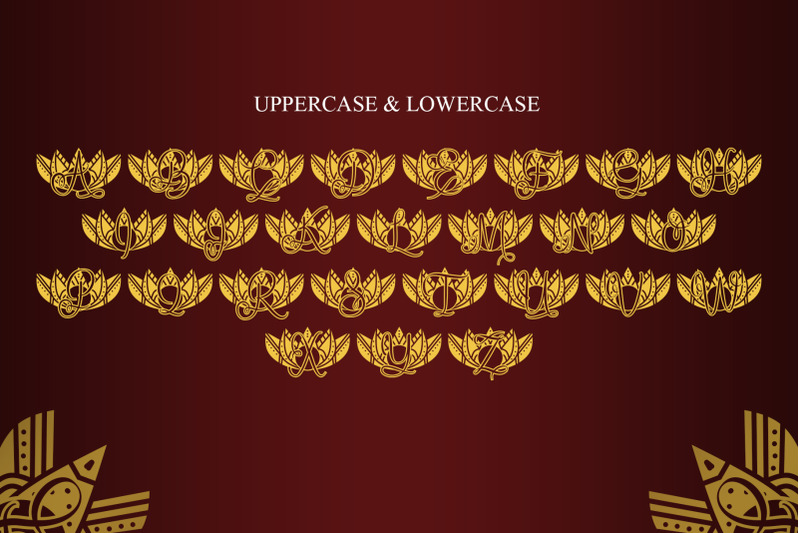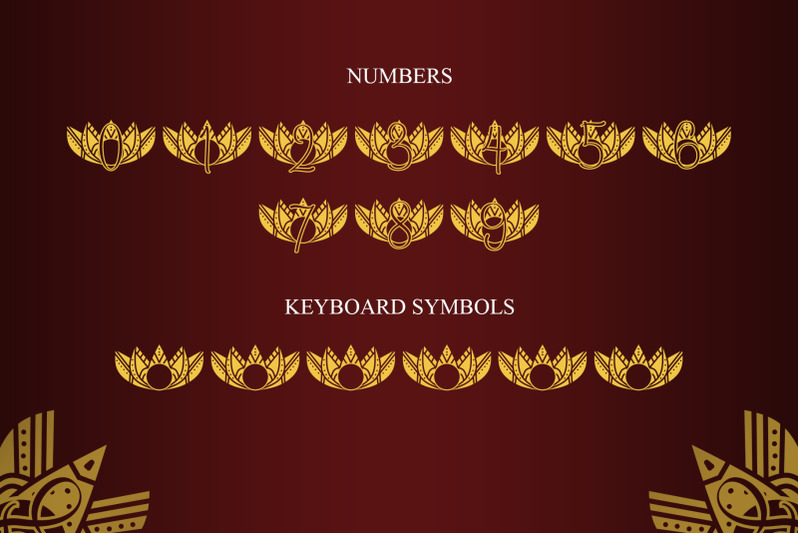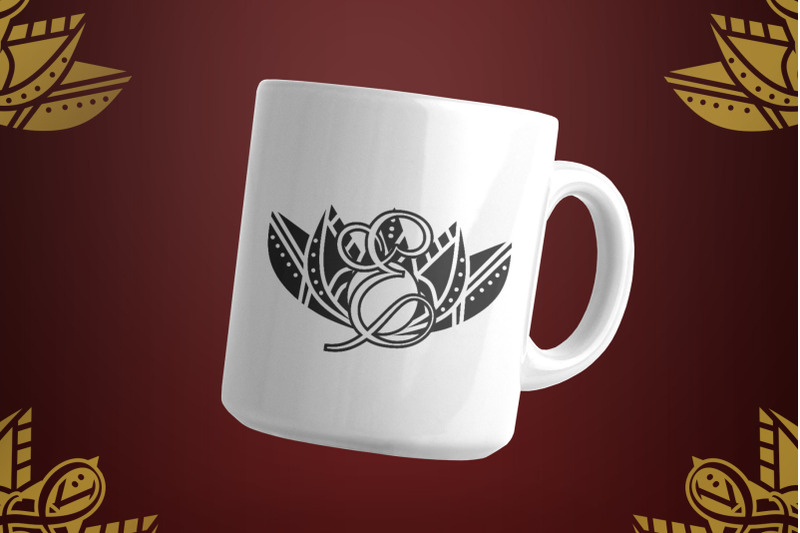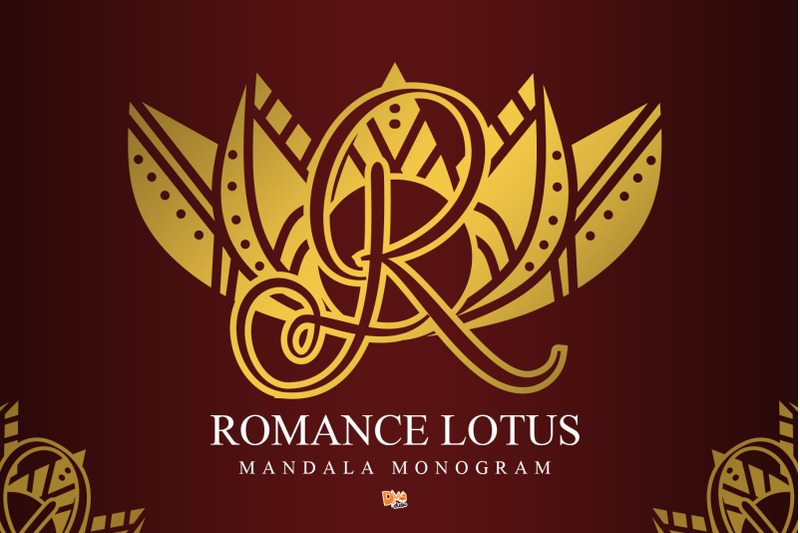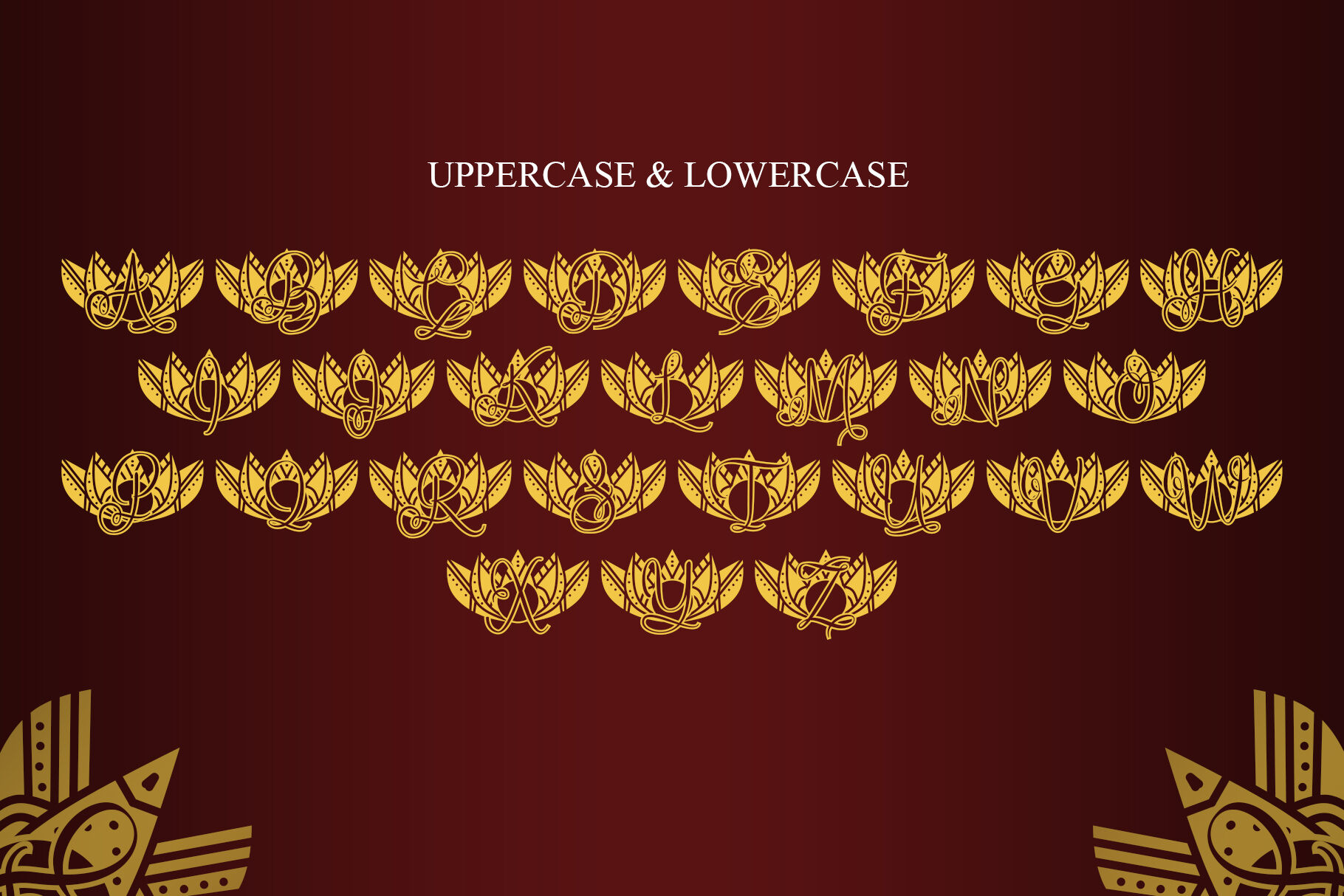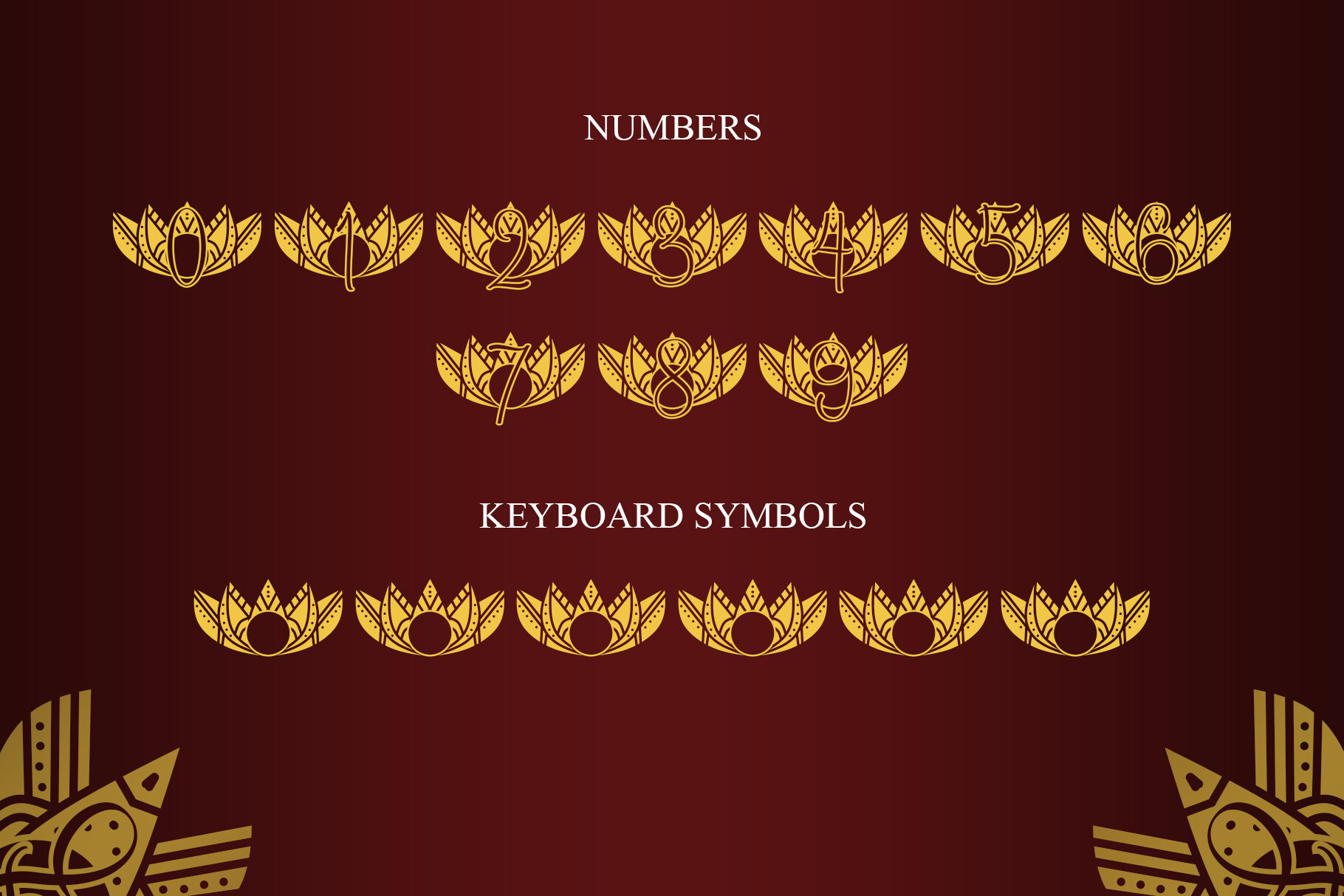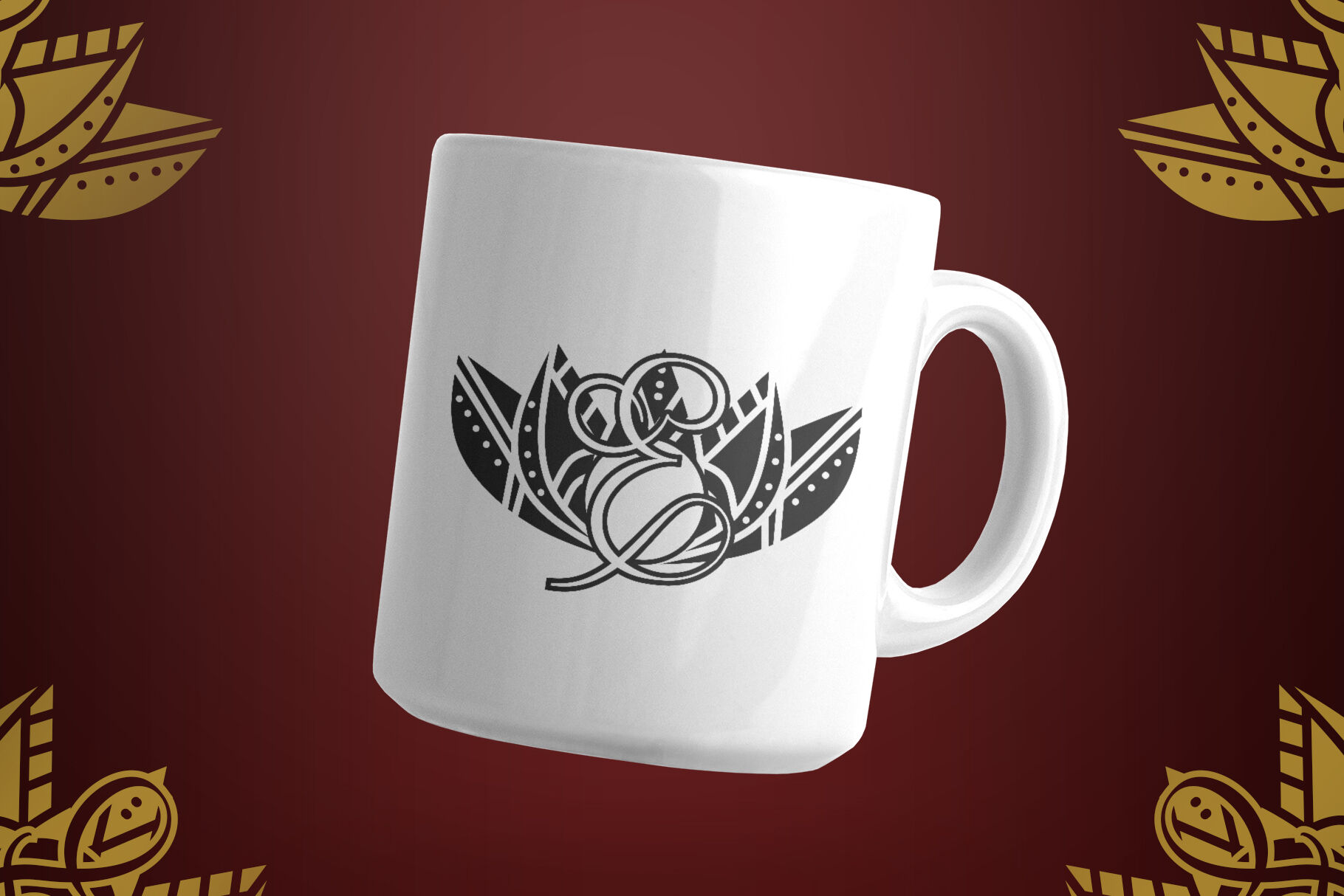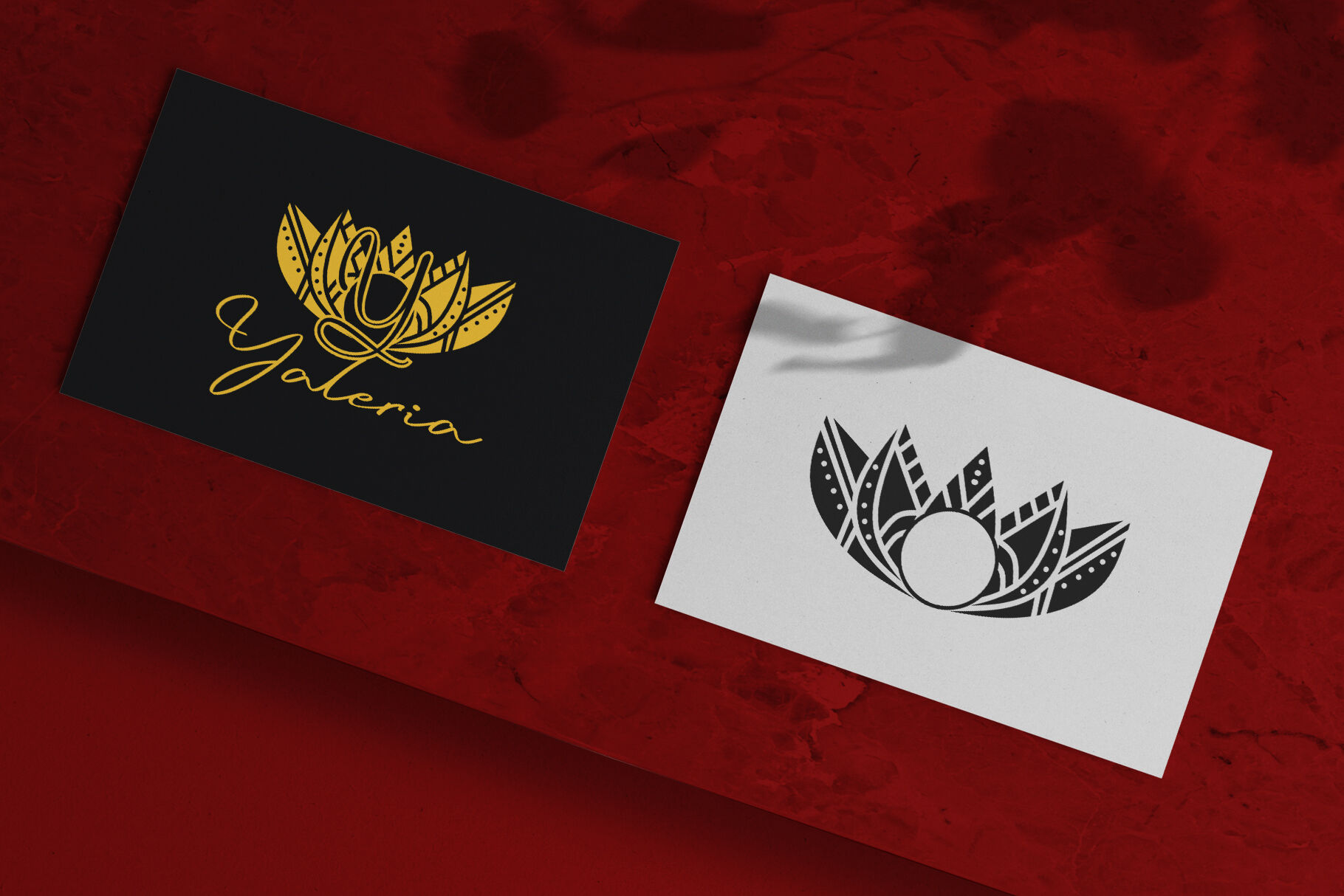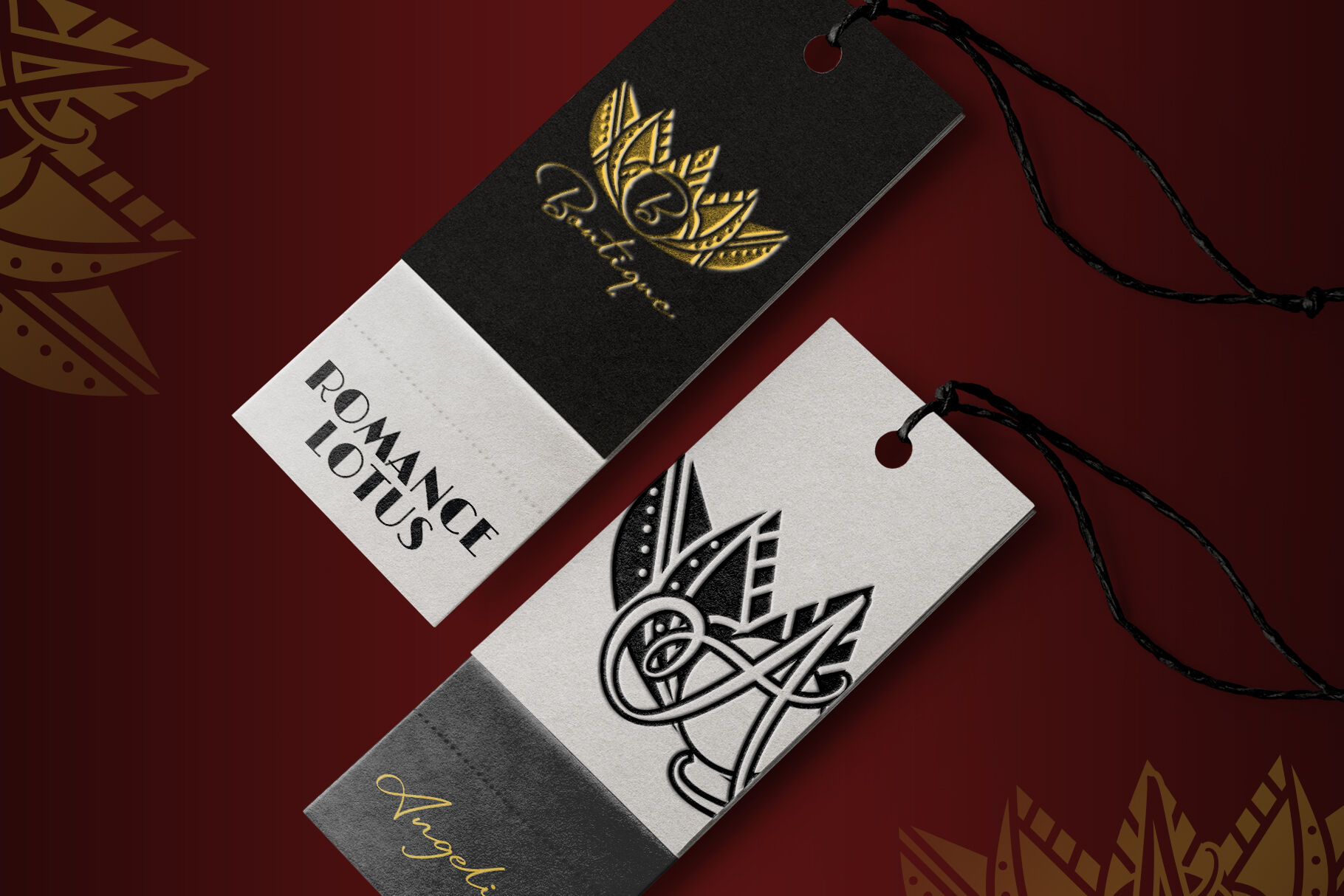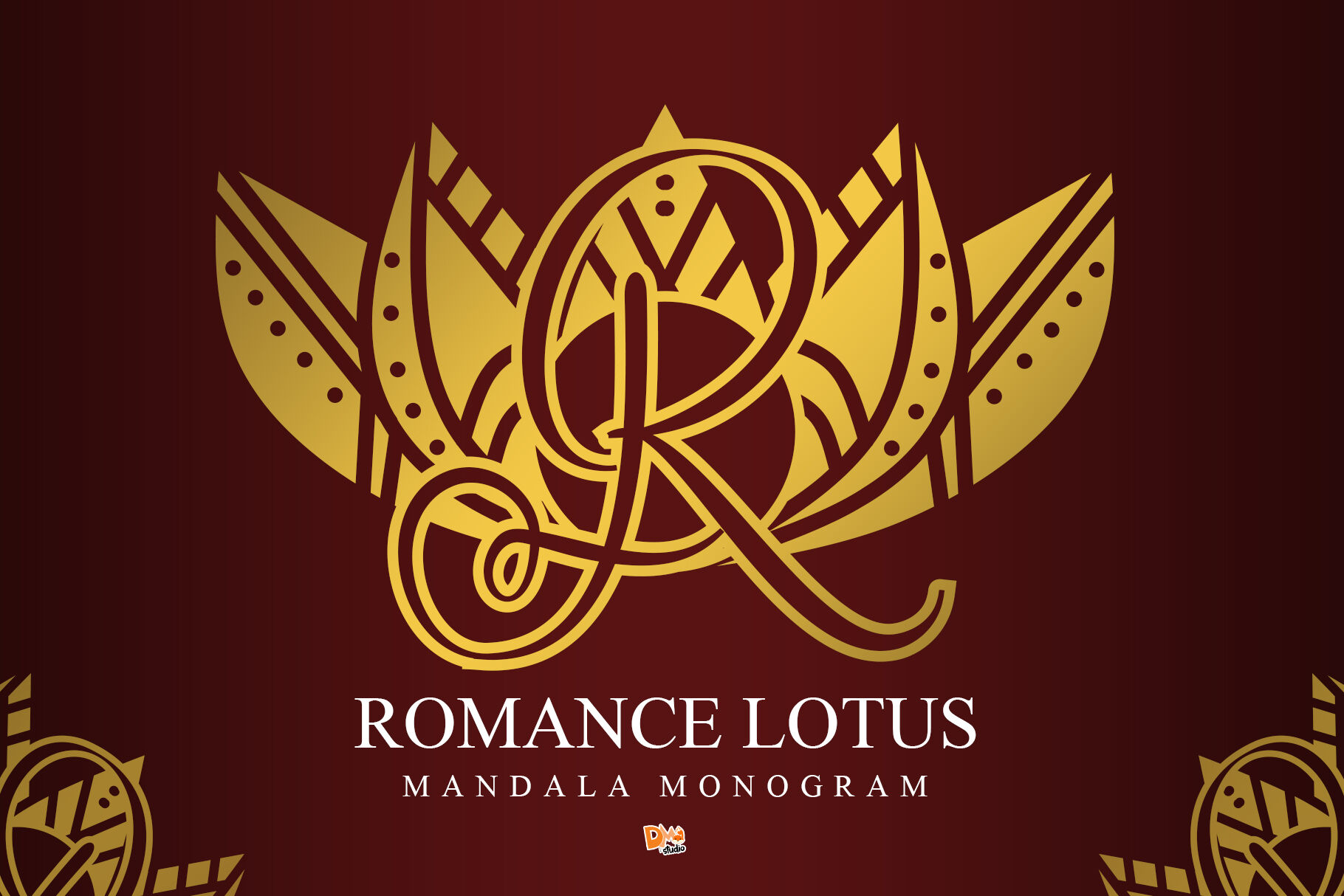
Romance Lotus Mandala Monogram – Elegant & Symbolic Monogram Font
Romance Lotus Mandala Monogram is a delicately crafted monogram font that blends romantic elegance with the spiritual beauty of lotus mandalas. Each character is adorned with intricate, hand-drawn lotus patterns, making it a stunning choice for personalized wedding decor, luxurious branding, or heartfelt stationery. This font captures love and grace in a timeless ornamental style.
Romantic Lotus-Inspired Design: Each letter features a detailed lotus mandala, symbolizing love, purity, and growth.
Perfect for Romantic & Elegant Projects: Great for wedding monograms, vow books, branding, packaging, and love notes.
Ornamental & Graceful Aesthetic: Brings a soft yet regal energy to your designs.
Complete Character Set: Includes uppercase, lowercase, numerals, punctuation, and multilingual support.